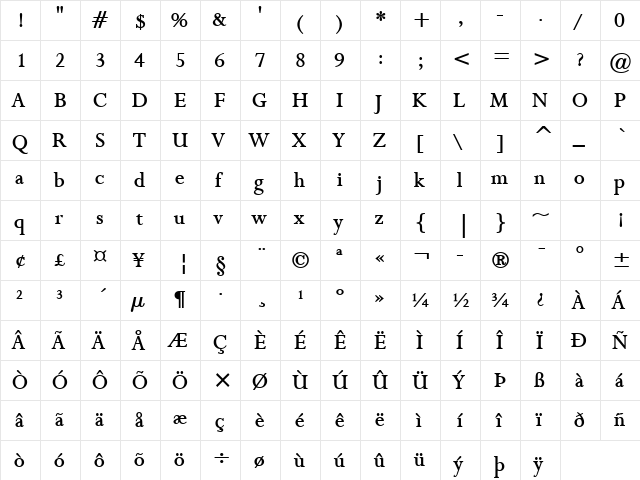
Rapid Bold
Design Context for Rapid Typeface
Rapid is a composed and adaptable typeface that performs quietly and consistently across a wide range of design contexts. Its bold stroke weight gives it real presence on the page.
Pro Tip: Pair Rapid with a font of contrasting weight or personality to build a more expressive typographic hierarchy.